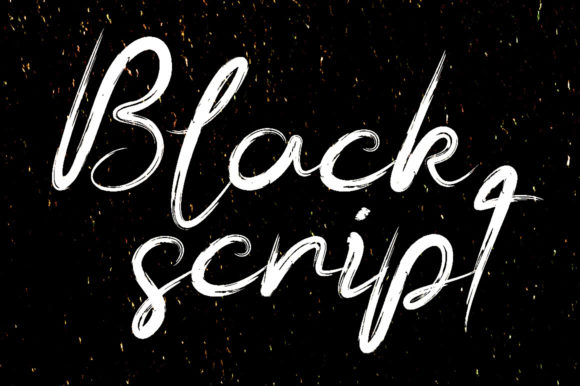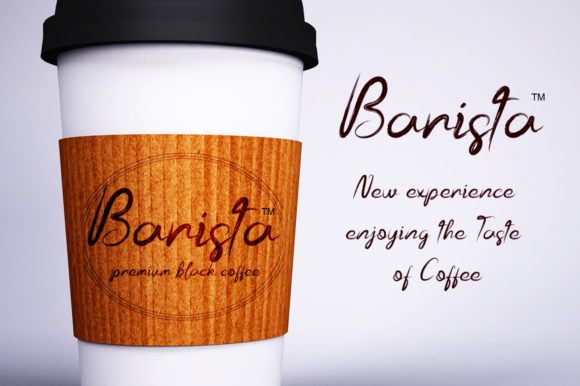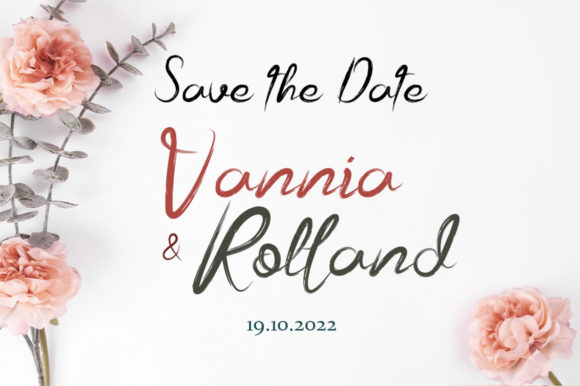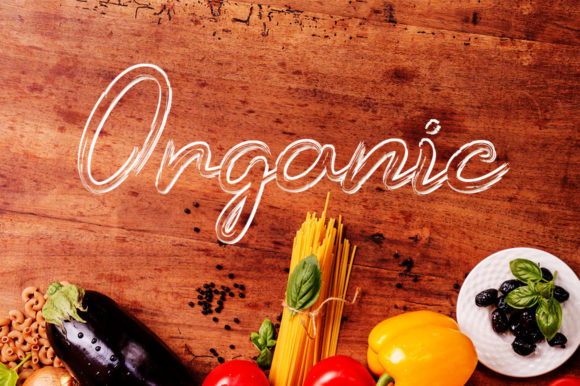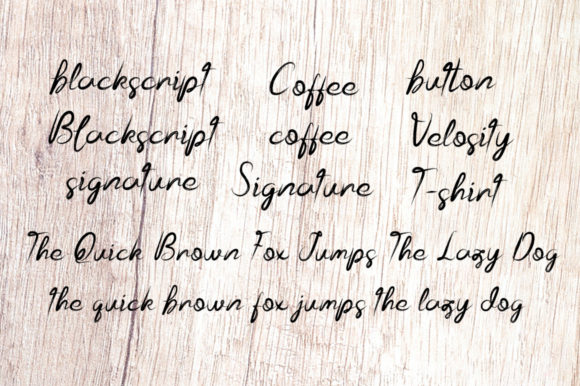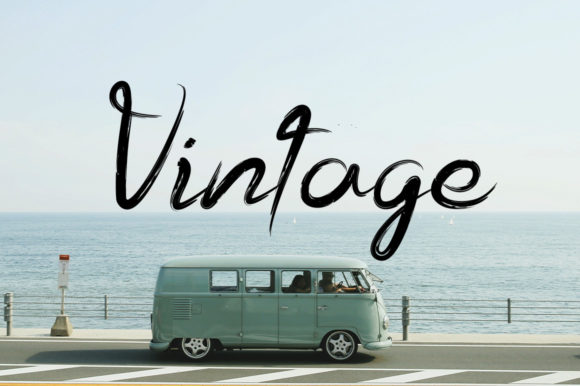
The Sweet Charm of Blackscript Font: A Designer’s Delight
I’ll never forget the time I was working on a project for a client’s wedding invitation. I had all the design elements in place – the beautiful floral patterns, the elegant color scheme, and the lovely couple’s photo. But something was missing. The font I was using just didn’t have that special something that would make the invitation truly unforgettable. That’s when I stumbled upon Blackscript Font, and it was love at first sight! 💕
An Honest Review of Blackscript Font
What I Love About Blackscript Font
- ✨ Simple yet sweet and cursive, giving it a unique touch
- ✅ Perfect for a variety of design projects, from logos to posters and playful lettering
- 💖 The handwritten brush font style adds a personal and human touch to any design
- 🎨 Highly versatile and can be used for various creative projects, including clothing designs
While Blackscript Font is a beautiful and versatile font, there are a few things to keep in mind. ⚠️ Some users have noted that it can be a bit tricky to read at smaller sizes, so it’s best to use it for headlines or titles rather than body text. Additionally, the font may not be suitable for very formal or traditional designs, as it has a more playful and casual feel.
🤔 Another thing to consider is that Blackscript Font may not have all the bells and whistles of some other fonts, such as a wide range of weights or styles. However, its simplicity is also part of its charm, and it can be a great choice for designers who want a clean and elegant look.
The Story Behind Blackscript Font
Blackscript Font was designed by a talented font designer who wanted to create a font that was both simple and elegant. The designer was inspired by the beauty of handwritten script and wanted to create a font that would capture the essence of this style. The result is a font that’s both versatile and beautiful, with a unique touch that sets it apart from other fonts.
Q: What is Blackscript Font?
A: Blackscript Font is a simple, sweet, and cursive handwritten brush font that’s perfect for a variety of design projects.
Q: Is Blackscript Font suitable for body text?
A: While Blackscript Font is a beautiful font, it’s best suited for headlines and titles rather than body text. It can be a bit tricky to read at smaller sizes.